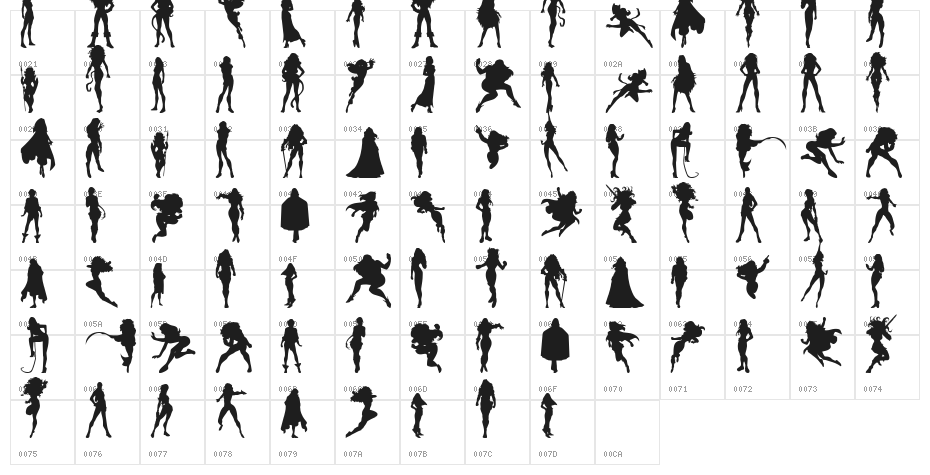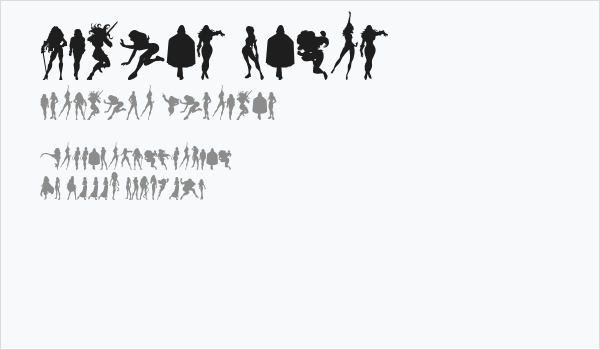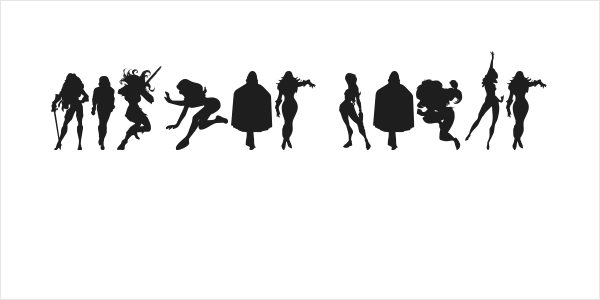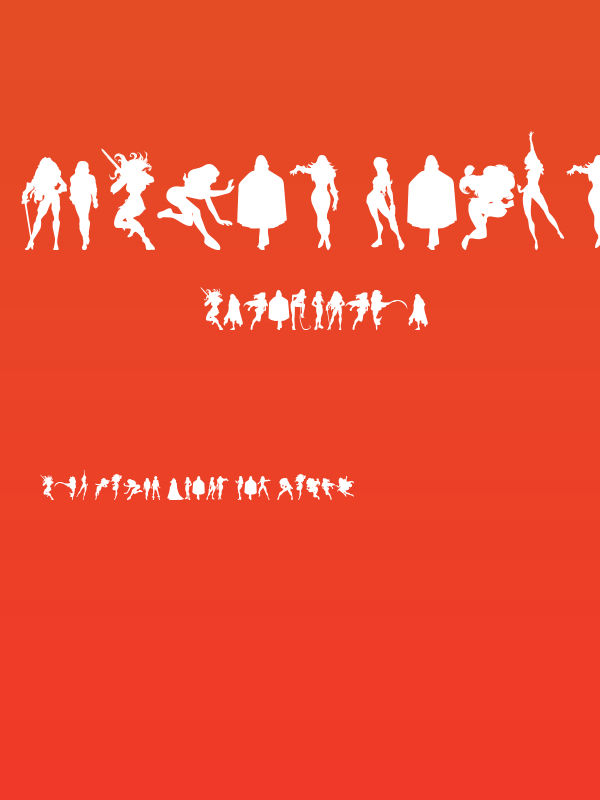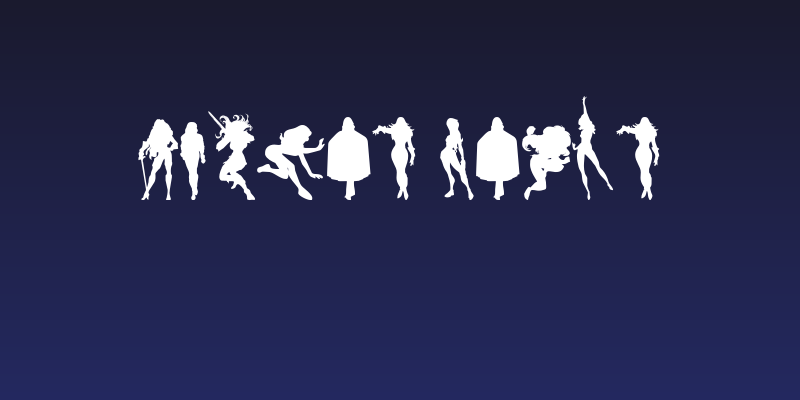
Action Women Font
Action Women Description
This image contains a collection of dynamic black silhouettes of women in various action poses, resembling comic book or superhero characters. The figures are highly stylized and expressive, with dramatic stances and flowing hair or costumes, but do not represent a font or typeface.